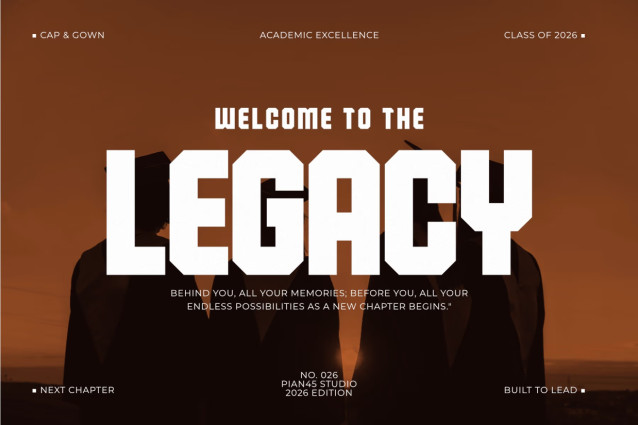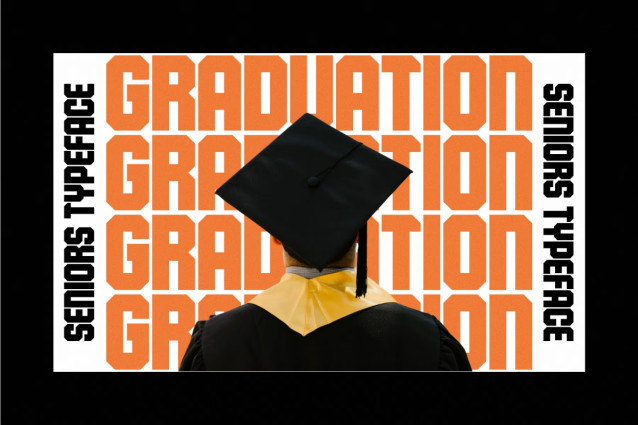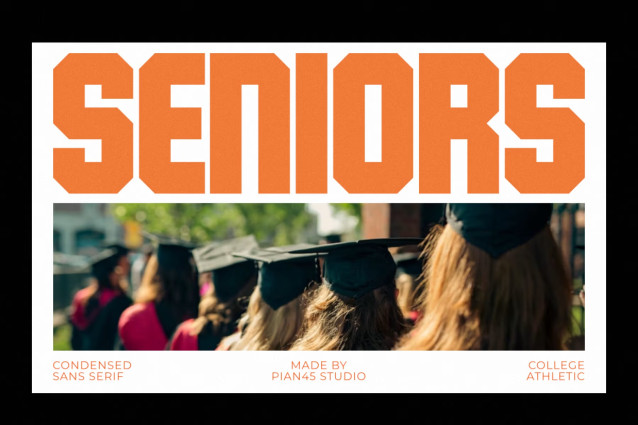
Seniors – College Athletic Sans Font
Seniors is a bold, high-impact Condensed Sans Serif font engineered to capture the iconic pride of graduation traditions, university campus culture, and varsity sports heritage. Featuring strong geometric block letterforms, chamfered athletic cuts, and a space-saving condensed typeface architecture with full multilingual support, this all-caps font is built for college athletic branding, alumni merchandise, graduation party banners, sports apparel, and team logos. Its solid visual structure and commanding presence deliver maximum legibility, making it the perfect choice for high-visibility headlines, yearbook layouts, custom t-shirt designs, and digital marketing graphics.